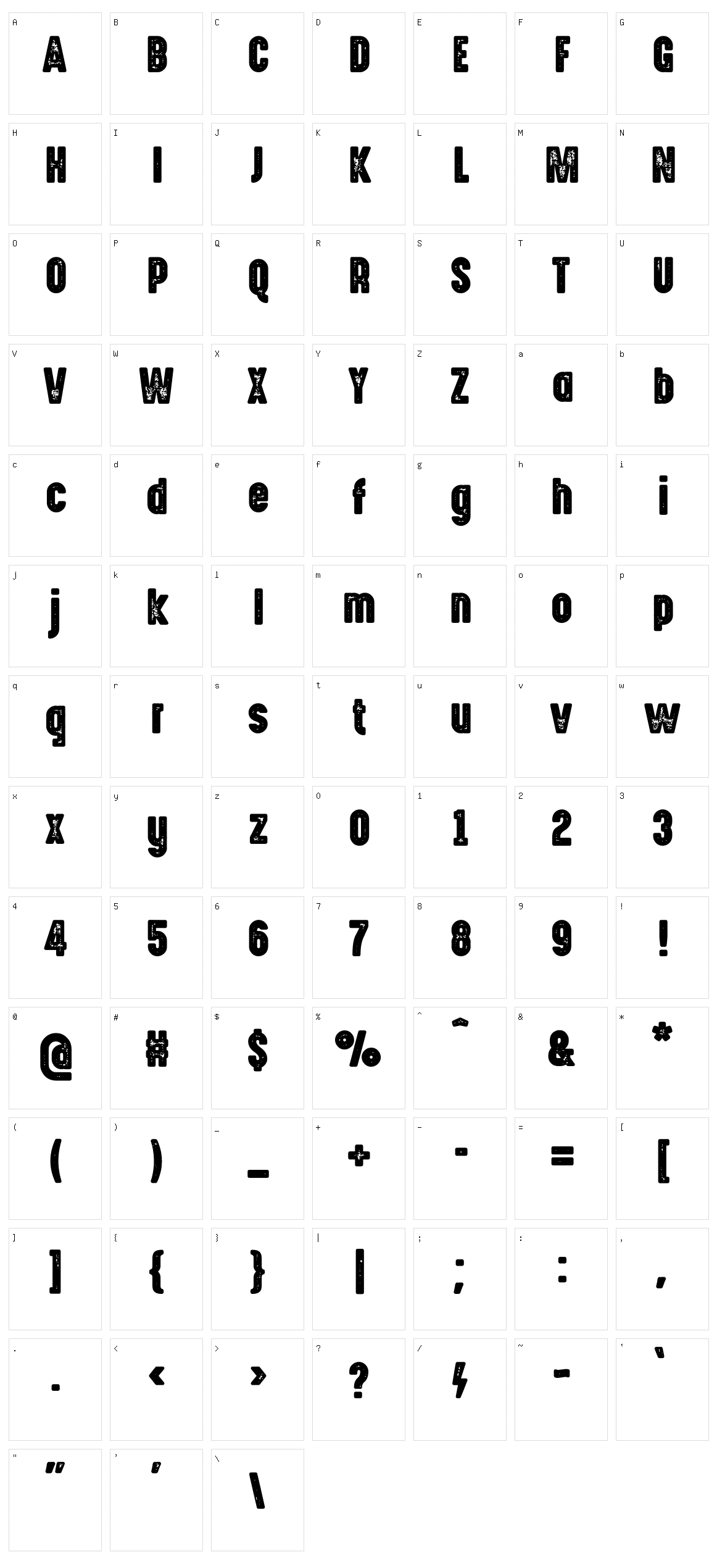
The free font High Voltage Heavy Rough is carefully designed by Levi Szekeres, showcasing a thoughtful balance of creativity and usability and falls under the Eroded font style. When you download the ZIP file, it contains only 231.11 KB of font files, making it lightweight and quick to download. Please review the license details below to understand permitted usage and distribution rights. If license information is not available, we recommend using this font for personal projects only or contacting the author directly for commercial usage permissions.